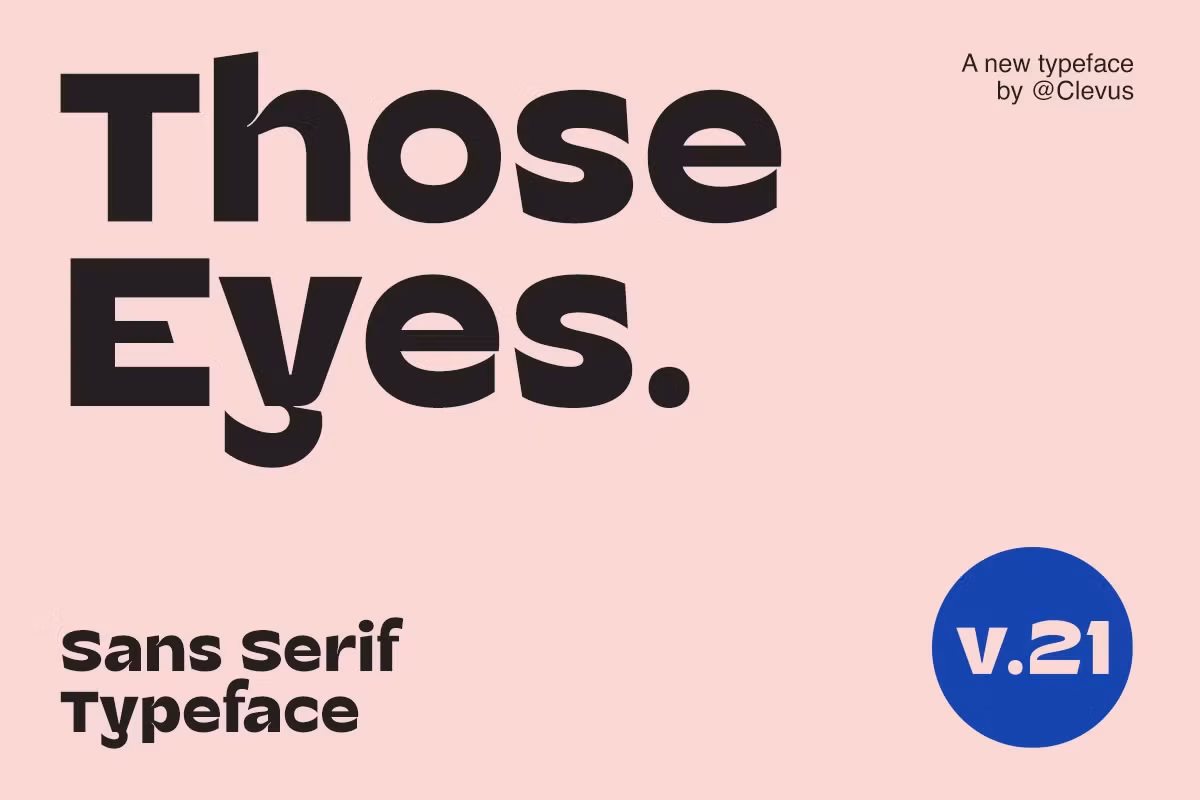
Bold, modern, and full of personality, Those Eyes | Chunky Sans Font Free Download is a striking sans-serif typeface that adds strength and impact to your designs. Perfect for headlines, logos, branding, posters, and social media graphics, this font delivers a bold statement with its thick, geometric letterforms and contemporary style.
With its chunky structure and clean lines, Those Eyes stands out with a playful yet professional look, making it ideal for creative projects that need to convey confidence and modernity. Whether you're working on a trendy brand or a dynamic event flyer, this font ensures your message is bold and memorable.